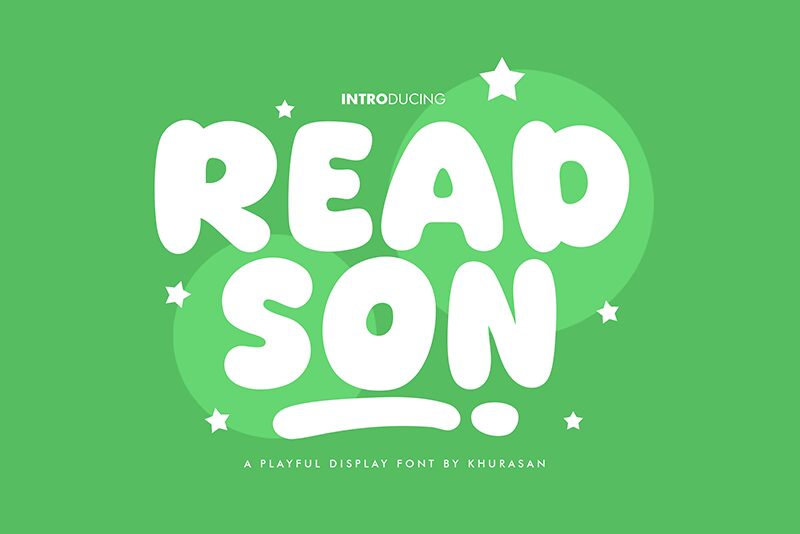
Readson font family by Khurasan™ is a modern, lively, and free font in a family of two font styles. Its informal, fun design is approachable and meant to make readers smile. Its rounded, bubbly, and soft structure makes it perfect for projects requiring a friendly and relaxed feel as the final effect.
Look at Readson as a great typographic addition for birthday invitations, classroom posters, stickers, or funny packaging designs, everyday merchandise, and simple creative book covers or UX/UI design projects. Use the typeface as signage or digital advertising material, themed magazine cover, event poster, or any other application.